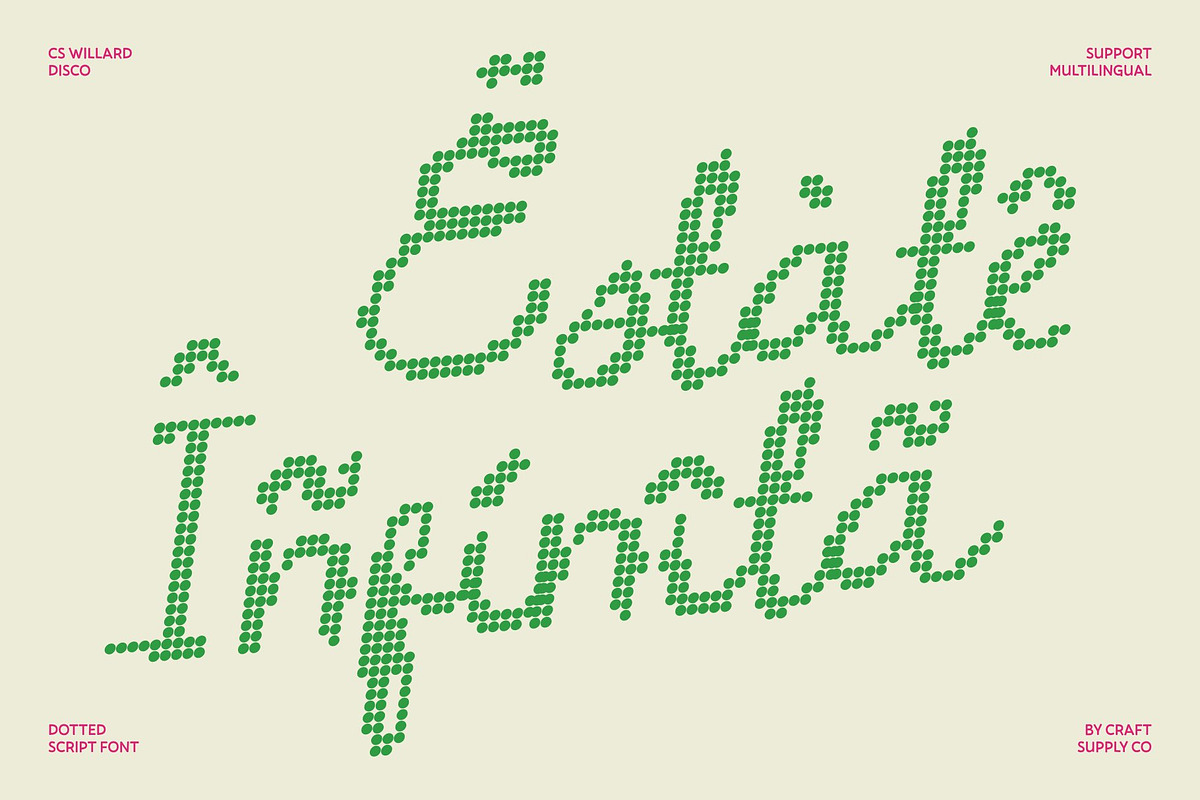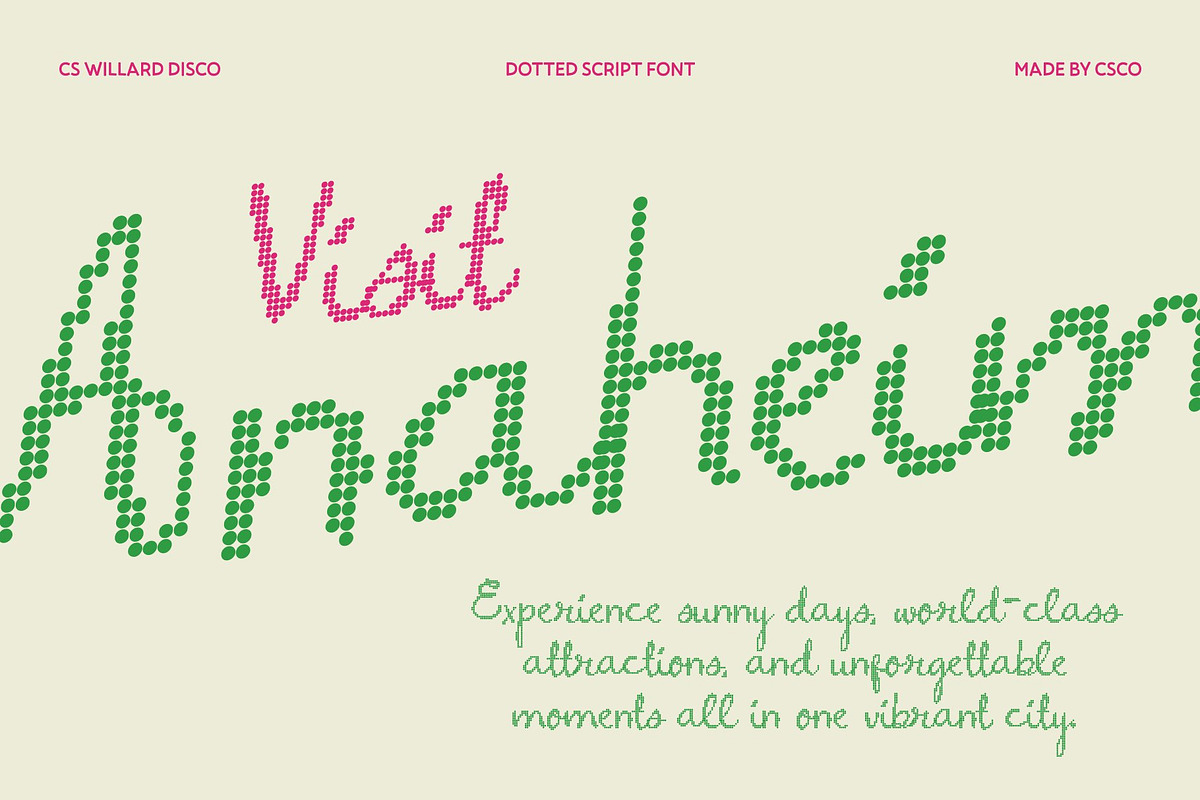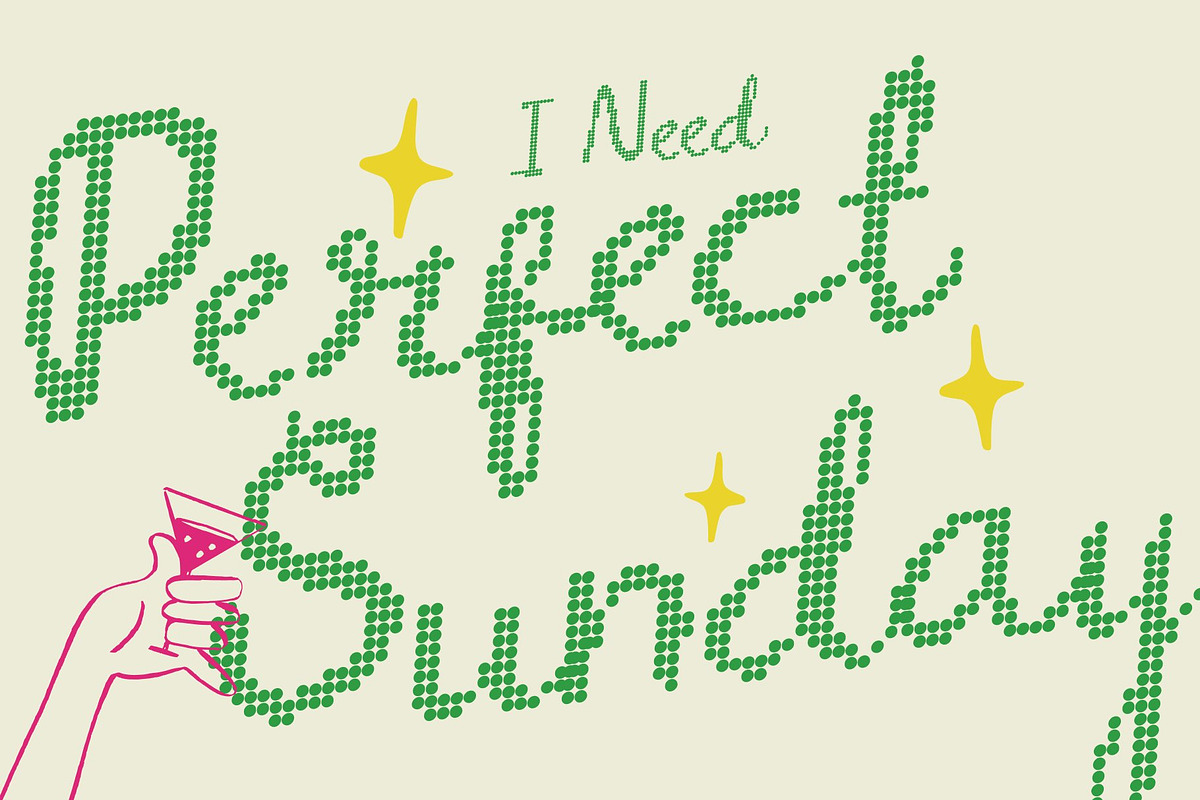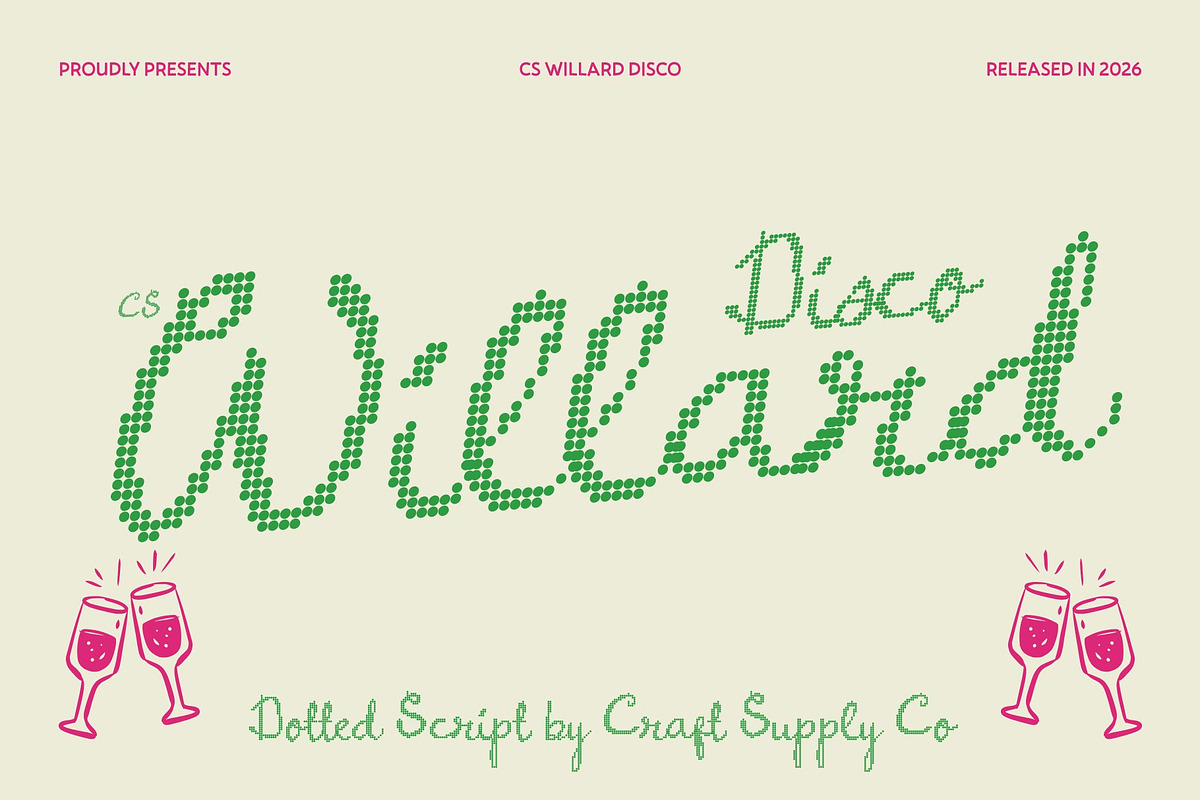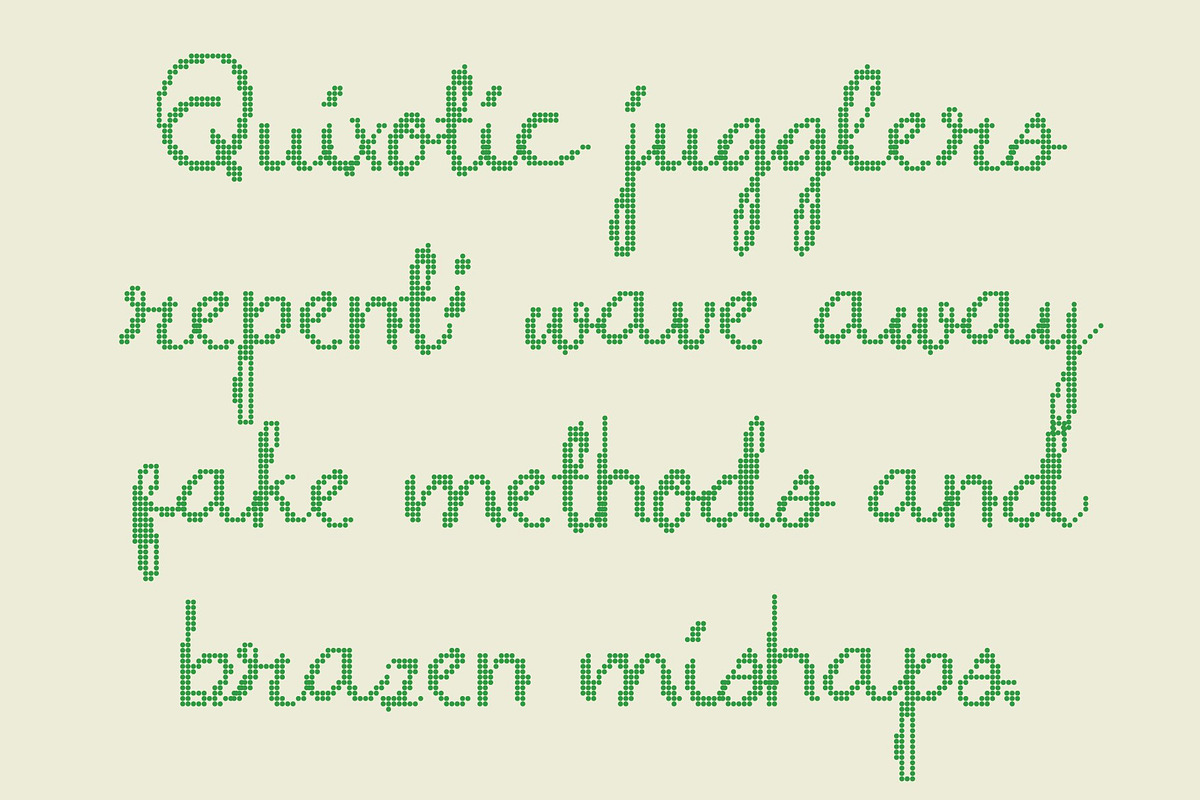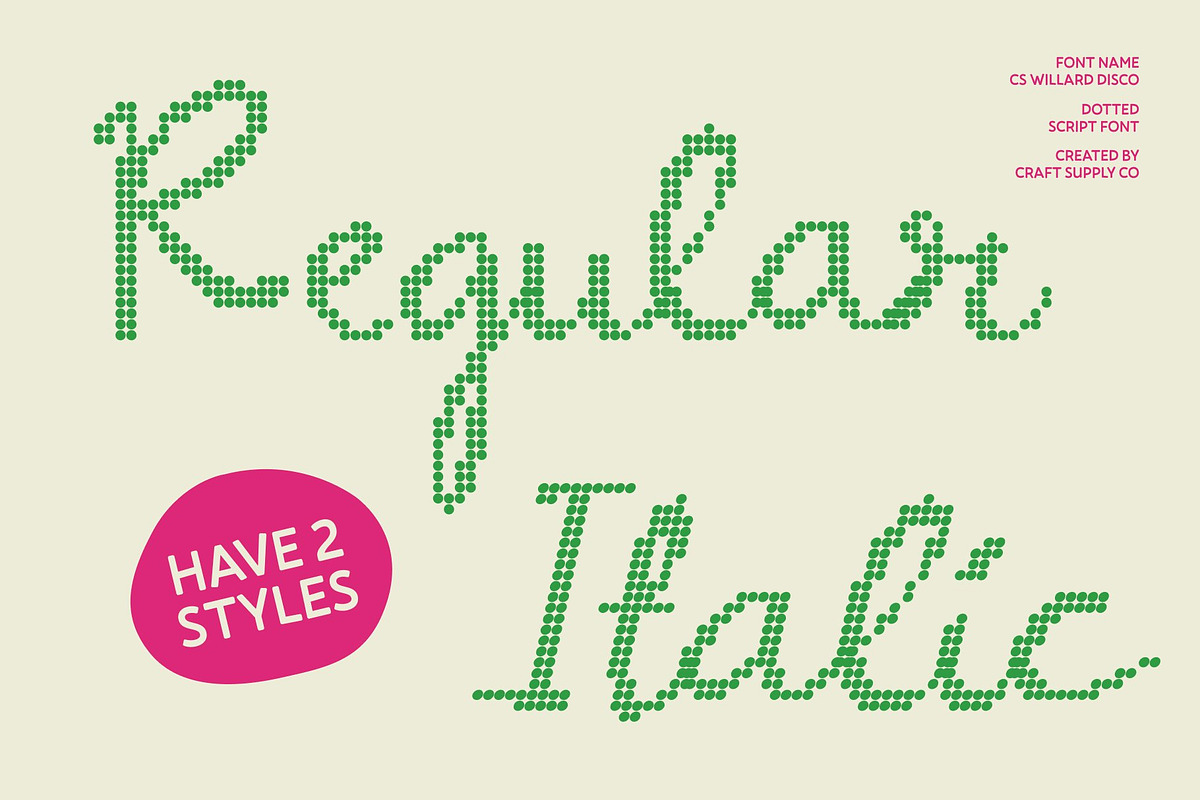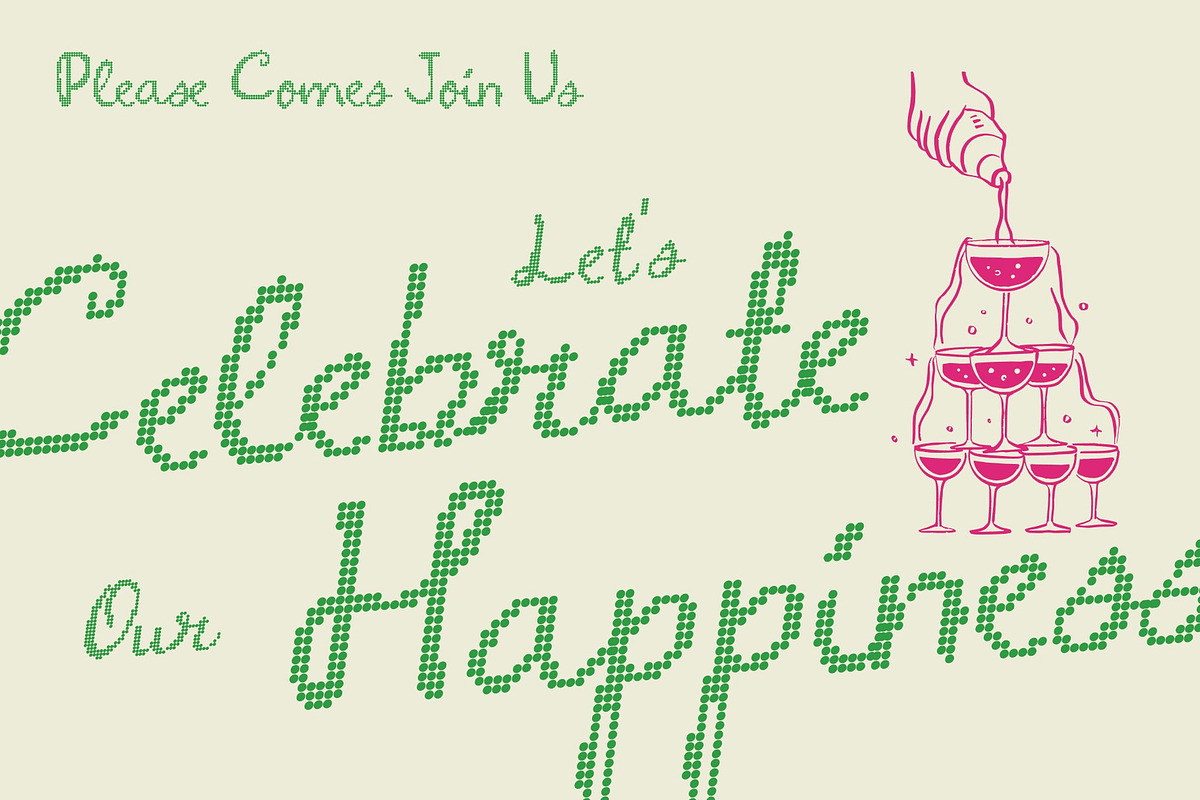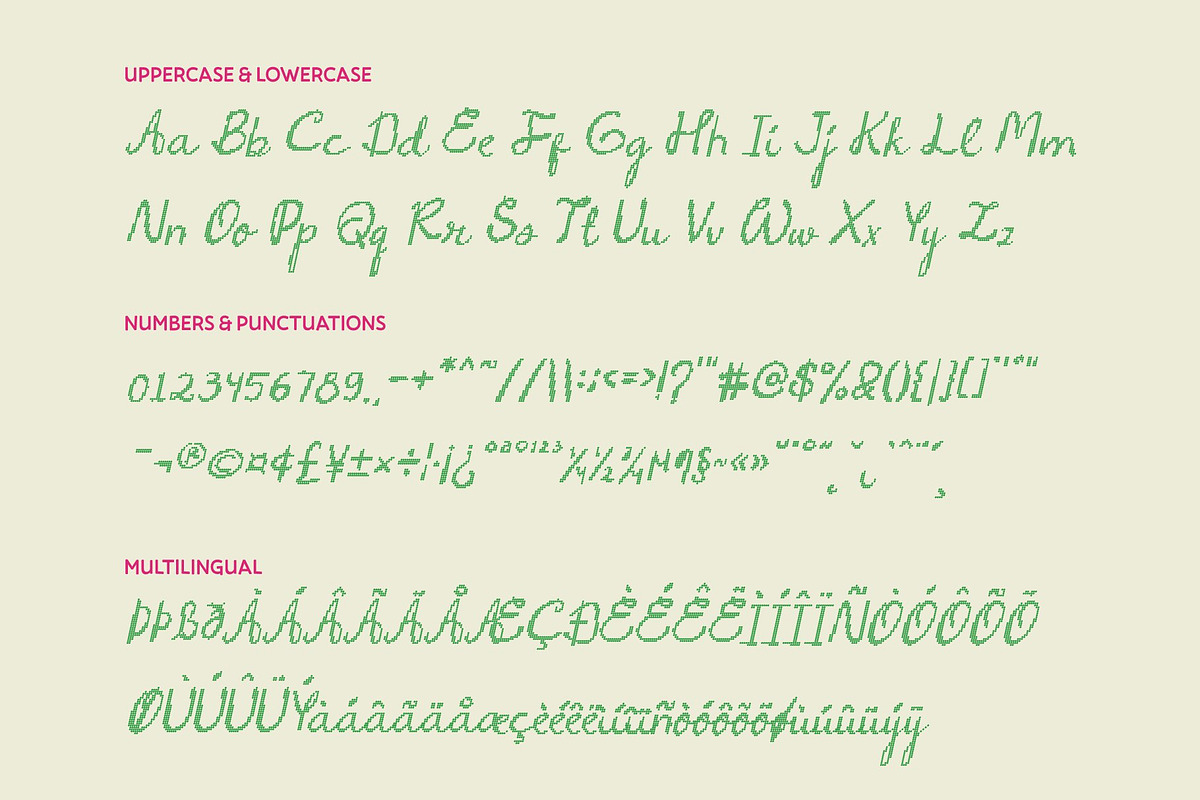
CS Willard Disco
CS Willard Disco – Whimsy Script Font with Sparkling Artistic Charm
Delicate Script with Disco Personality This whimsy script font blends graceful handwritten strokes with a lively disco dot texture, creating a look that feels soft, artistic, and joyfully expressive. The flowing curves and playful rhythm bring warmth and personality, while the dotted styling adds a festive sparkle that makes every word feel vibrant and celebratory.
Elegant Flow with Creative Flair Smooth, sweeping strokes give each letter a refined and stylish presence. The balance between elegance and spontaneity ensures the font feels sophisticated yet playful, making it perfect for designs that want to appear creative, gentle, and visually engaging.
Perfect for Branding and Personal Expression Ideal for boutique branding, lifestyle packaging, and editorial layouts, this font delivers personality and charm in every line. Its expressive script style helps logos and visual identities feel memorable, artistic, and full of character.
Ideal for Invitations and Fashion Graphics From wedding invitations and greeting cards to fashion look books and social media content, this font adds romantic flair and cheerful energy. The combination of delicate handwriting and disco-inspired texture ensures designs feel personal, stylish, and beautifully crafted.
CS Willard Disco Regular
CS Willard Disco Italic